Сontinuous use of the product under high tension conditions (which is common when we talk about the financial sphere) might cause eyestrain and general weariness. Consequently, users might make poor decisions and become inattentive to details, which will lead to harming their investment portfolios. My goal, as a designer, is to prevent these drawbacks and make daily operations comfortable.
The main designer’s instrument to work with the product is the UI kit, a collection of reusable components, such as controls, color palettes, effects, and text styles. Typography is an important part of it as it defines a text style library and conveys the most valuable and powerful instrument — the information — from platform to user.
To explain my approach to digital product typography, I invite you to go over each step, from research to implementation. Before diving deep, let’s cover the basic terms.
Basic Terminology Before We Begin
A typeface (or a font family) is a range of graphically similar fonts with a common visual idea behind them. For example, Helvetica is a typeface.
A font is part of a typeface. It is a collection of symbols that might differ in weight (Semibold/Bold/Black), might be upright or italic (Regular/Cursive/Italic), have various widths (Narrow/Wide), and so on.
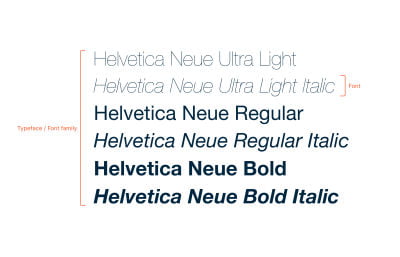
Please keep in mind that these two terms are often interchangeable, even when used by type designers.
Now that we have our basic terms defined let’s go over our suggestions on the workflow when creating or choosing a font for a fintech product.
Step 1: Detect Data Types And User Flows
If you’re a fintech designer in the trading sphere, you’ll mainly deal with spreadsheets. Usually, they represent fundamental page units with data on markets.
Other standard data media include product cards and forms for order entry, cancellation, adjustment, and so on. Product cards provide users with more detailed information on trading instruments, while forms allow users to interact with markets. These interactions are user flows.
What do all these different kinds of information have in common? They’re all displayed as texts. In this case, the core design values are the following:
- An appropriate typeface,
- Working with typography,
- A layout,
- An accurate representation of information.
In the picture above, you can see the example of a platform for exchange administrators with all typical types of data. A spreadsheet displays a list of trades and dozens of their parameters. At the back is an example of a trading instrument card (currency pair) with dynamic quotes that update in real time. The chart displays trade history with prices and volumes, and the Market Depth graph at the right shows the current state of the market — the volume of Buy and Sell orders and their prices.
Now when we have defined the most common types of data in fintech products, let’s zoom in and see what specific circumstances we need to consider in our product.
Step 2: Consider Your Requirements
Best design practices facilitate current requirements and consider potential scenarios of product evolution. When working on a fintech product, you should also consider features such as language support, special characters, and use conditions. Let’s have a look at these spheres and highlight the most considerable points in each of them.
Language Support
Forecasting specific typographical cases at the start of a project might be a great investment for future development. For instance, product localization and translation to various languages is one such case. Should your product support one or multiple languages? If multiple, try to understand the average difference in word lengths.
For example, German words are generally much longer than English ones. Compared to these two, French and Spanish words are somewhere in between. Consequently, French or German versions need more text space in design than the English one, which will cause layout changes.
Many languages also use diacritics (additional typographical signs above and under the letters). These writing systems may require more space between lines to make texts more legible.
Logographic or logosyllabic writing systems are quite the opposite: unlike Latin-based languages, they are usually very compact. Few font families support both hieroglyphic and Latin languages, though. So, if you can’t find an appropriate font for your needs, you’ll have to pick out two different typefaces that will match visually.
Having information on supported writing systems and future localizations will allow you to choose a typeface with all the necessary languages. Contact the product owner or manager to determine which languages may appear in your product. This way, you will develop a design for all corner cases and create a visual system fit for all localizations.